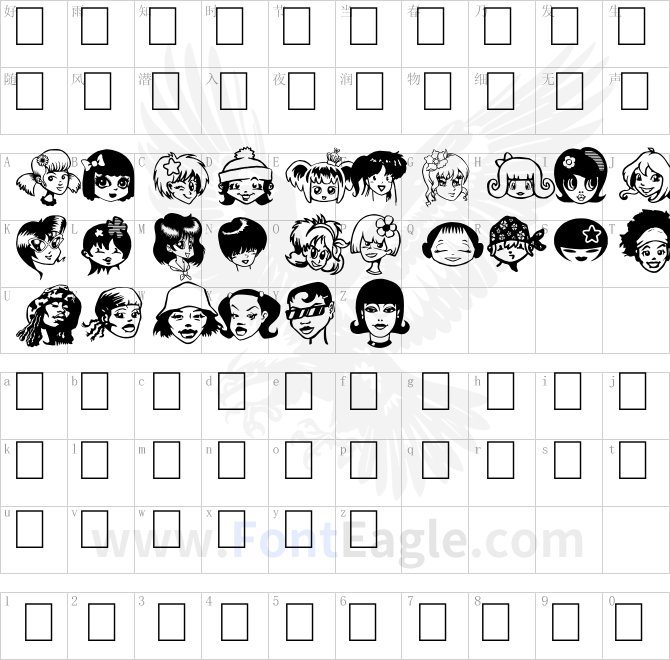
- Font name:Egirlz
Egirlz is a great font, widely used in graphic design, single-page menu design, poster design and other fields, and is deeply loved by designers.Egirlz download.